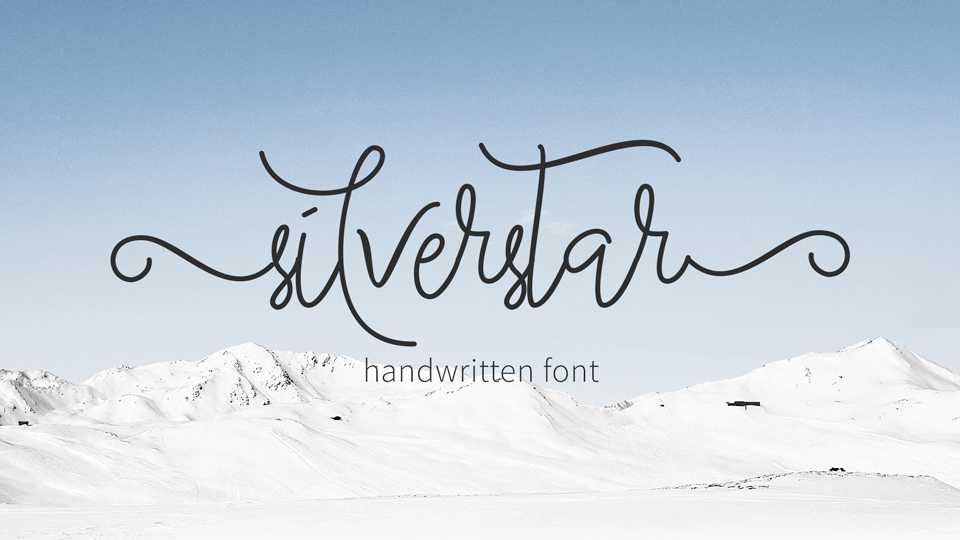
Download free Silverstar font a beautiful handwritten script with lovely swashes. Great for letters, cards, quotes, notes, wedding designs and more.
Designer: Selawetype